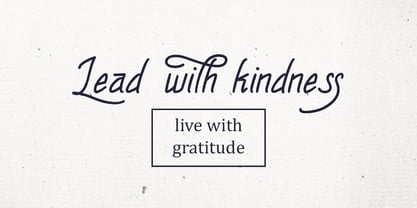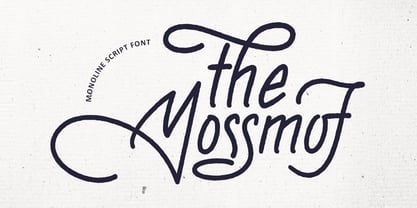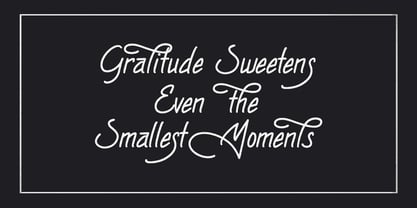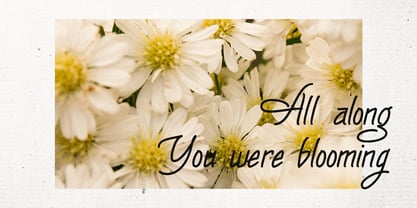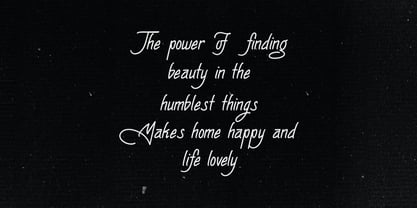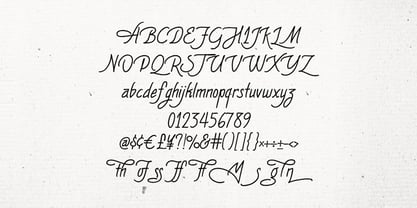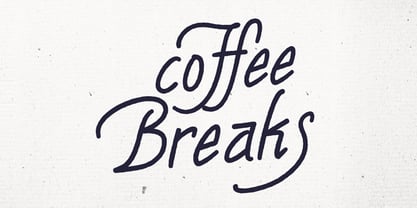
MC The Mossmof
by Maulana Creative
The MC The Mossmof Font Family was designed by Gilang Maulana and published by Maulana Creative. MC The Mossmof contains 1 styles. More about this family
Mossmof is an exquisite Monoline Script Font that exudes a charming, handcrafted essence, making it a perfect choice for various design projects. Designed by Maulana Creative, this font harmoniously blends classic elegance with modern aesthetics, featuring consistent line weights and beautifully connected characters. Its smooth, flowing script emulates natural handwriting, adding a sophisticated flair to your work. Ideal for branding, wedding invitations, inspirational quotes, social media graphics, product packaging, and stylish logotypes, Mossmof offers versatility across multiple applications. The font includes a full set of uppercase and lowercase letters, numbers, punctuation, and an array of special characters and ligatures, providing ample creative freedom. Despite its artistic details, the monoline design ensures excellent legibility, making your messages clear and impactful. Perfect for themes of kindness, gratitude, happiness, and nature, Mossmof shines in inspiring quote previews and other heartfelt designs.
Designers: Gilang Maulana
Foundry: Maulana Creative